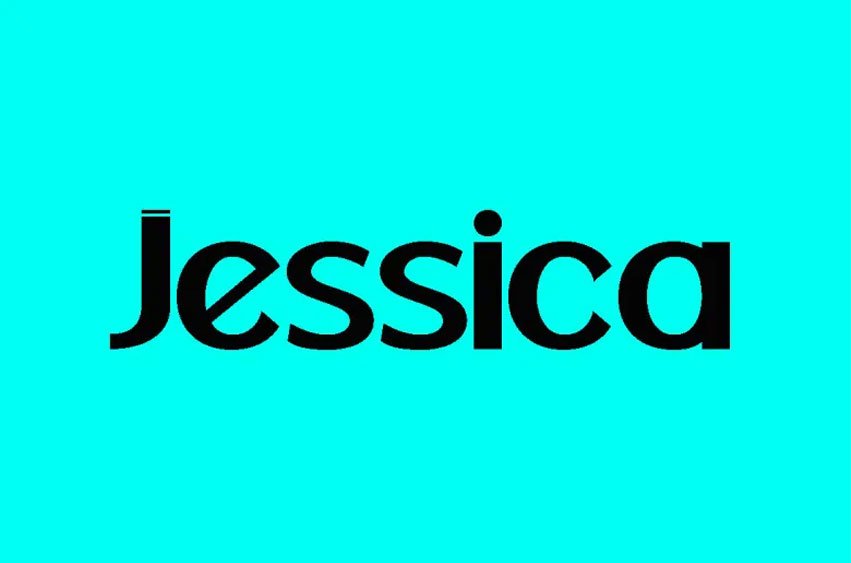
Jessica Display Font
Jessica Display Font is an ultra-clean and modern-looking display font.
Easy used terminal, holes, line, or techno styled this font make your web designs, logos, or pretty much anything that requires a smart, cool touch.